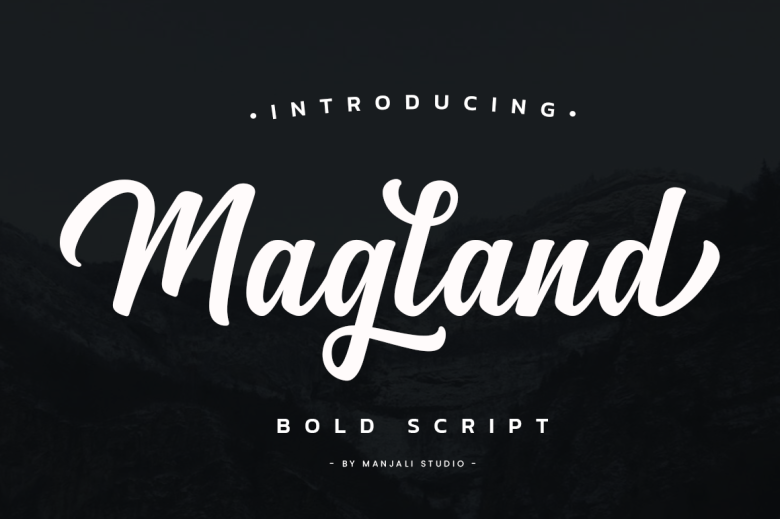
Magland Font
Magland is a beautiful, well balanced and stylish script font. It is defined by smooth curves and is perfect for fashion branding or editorial designs.